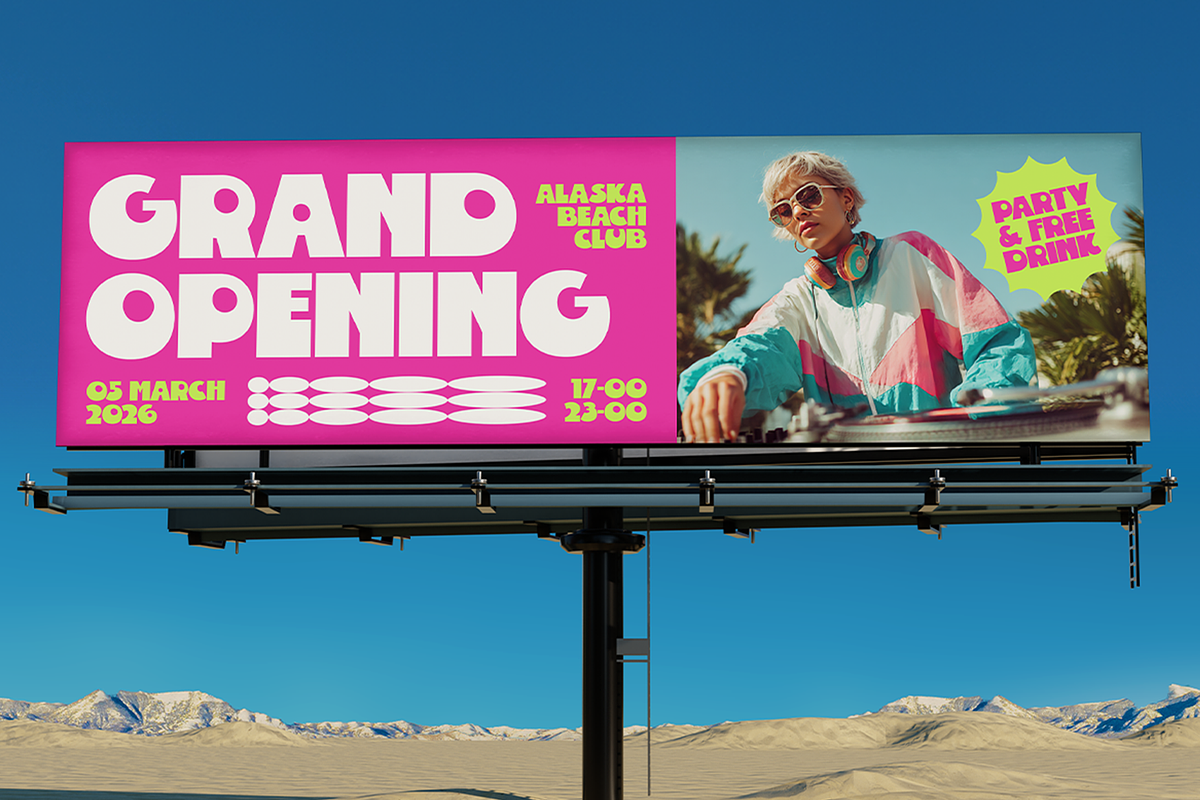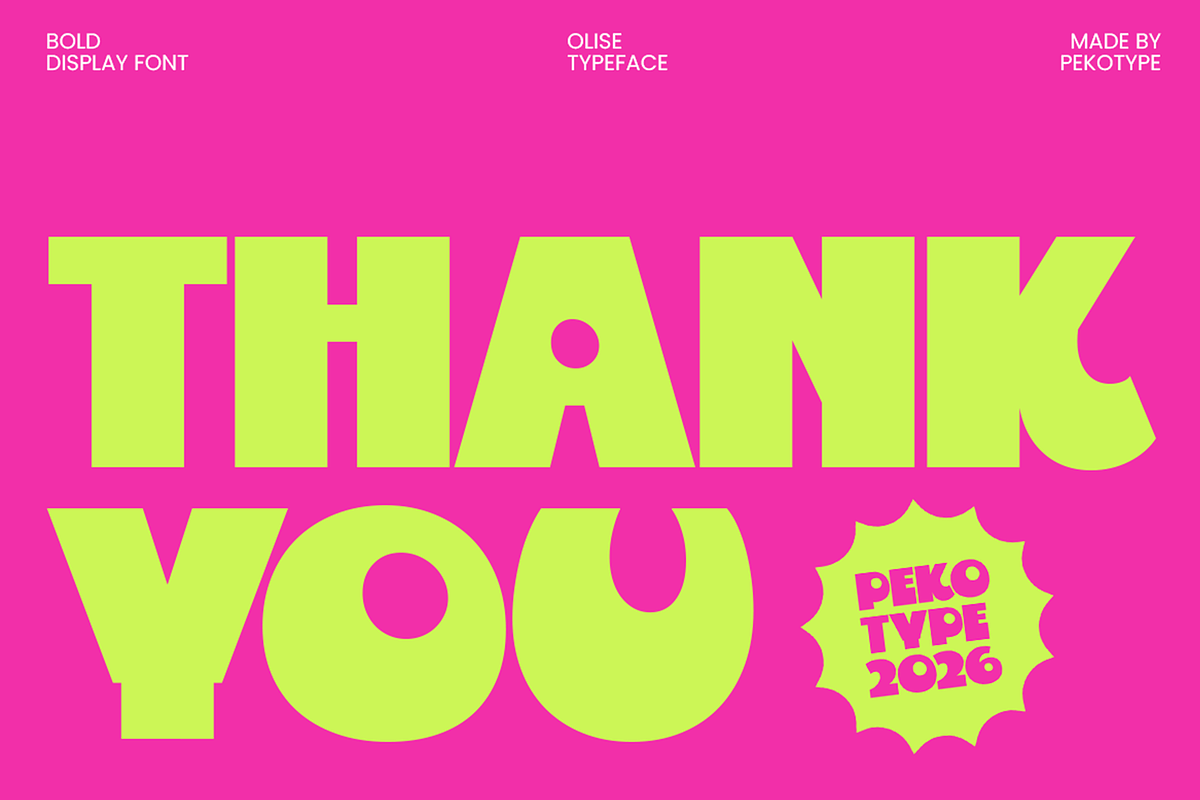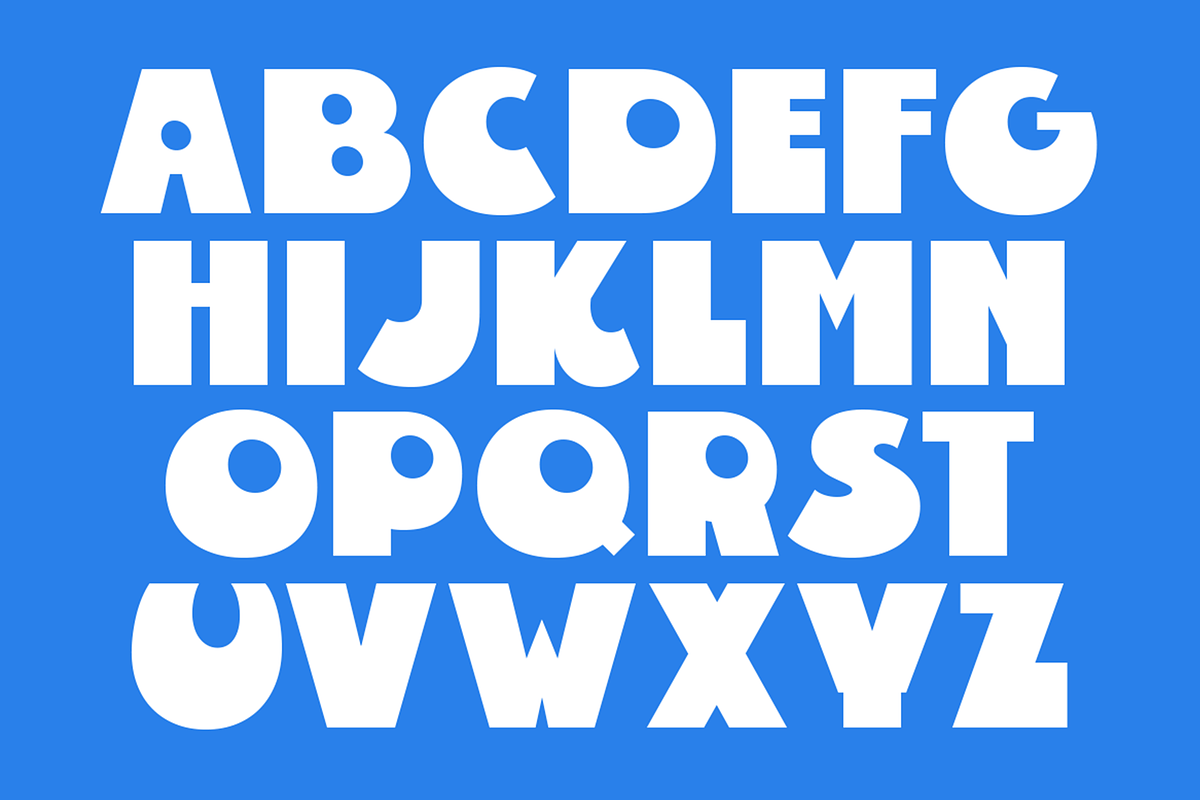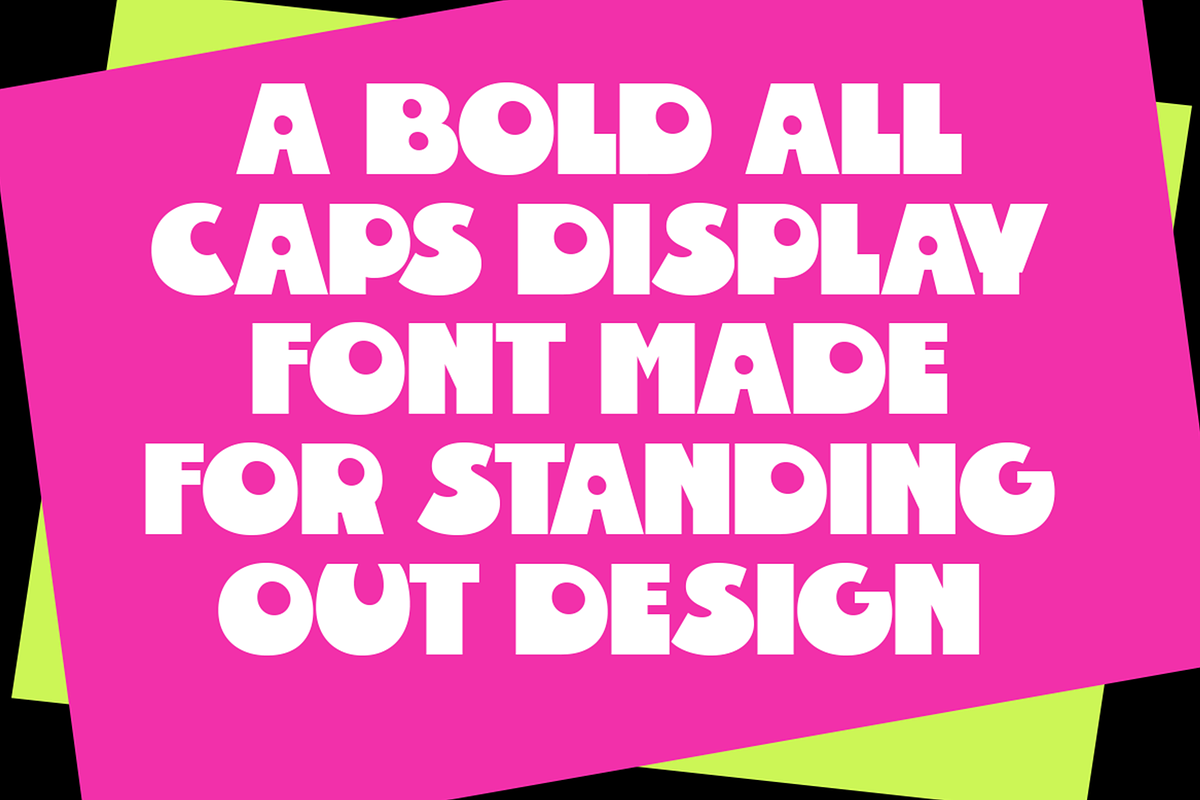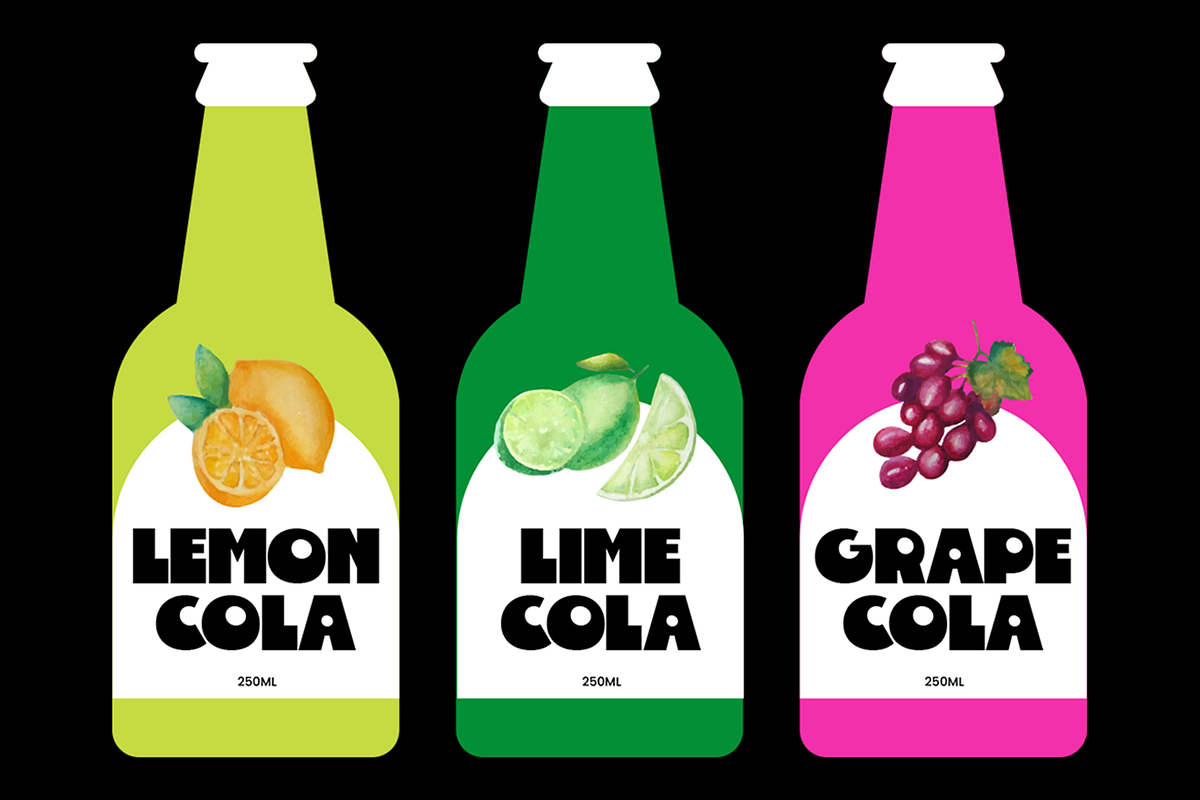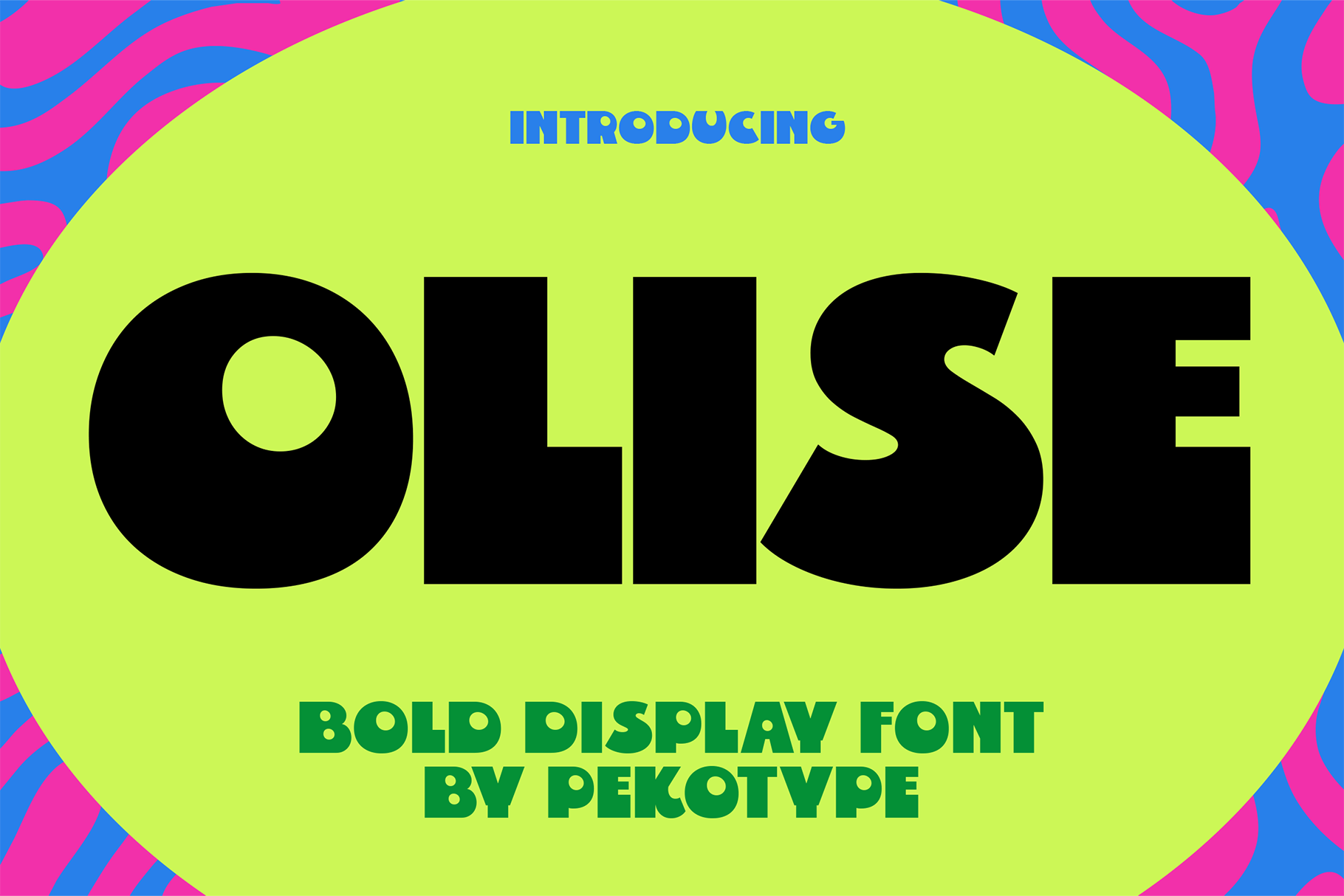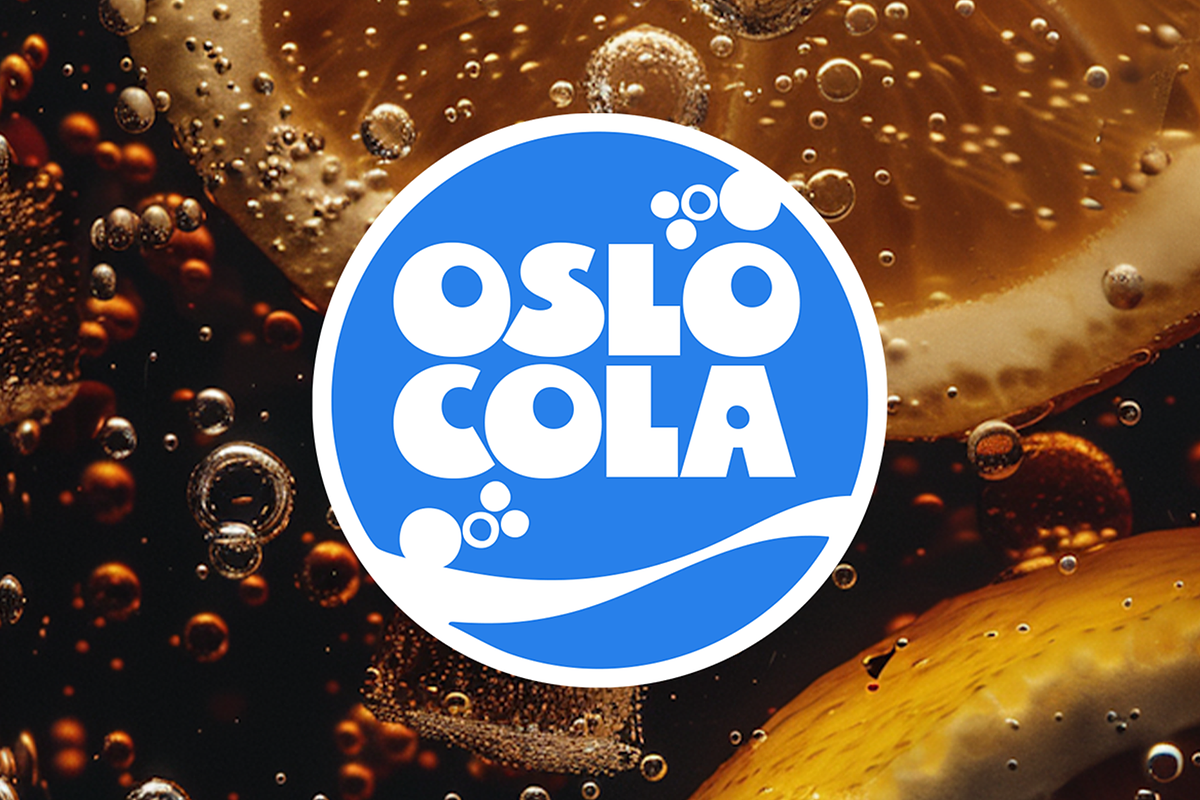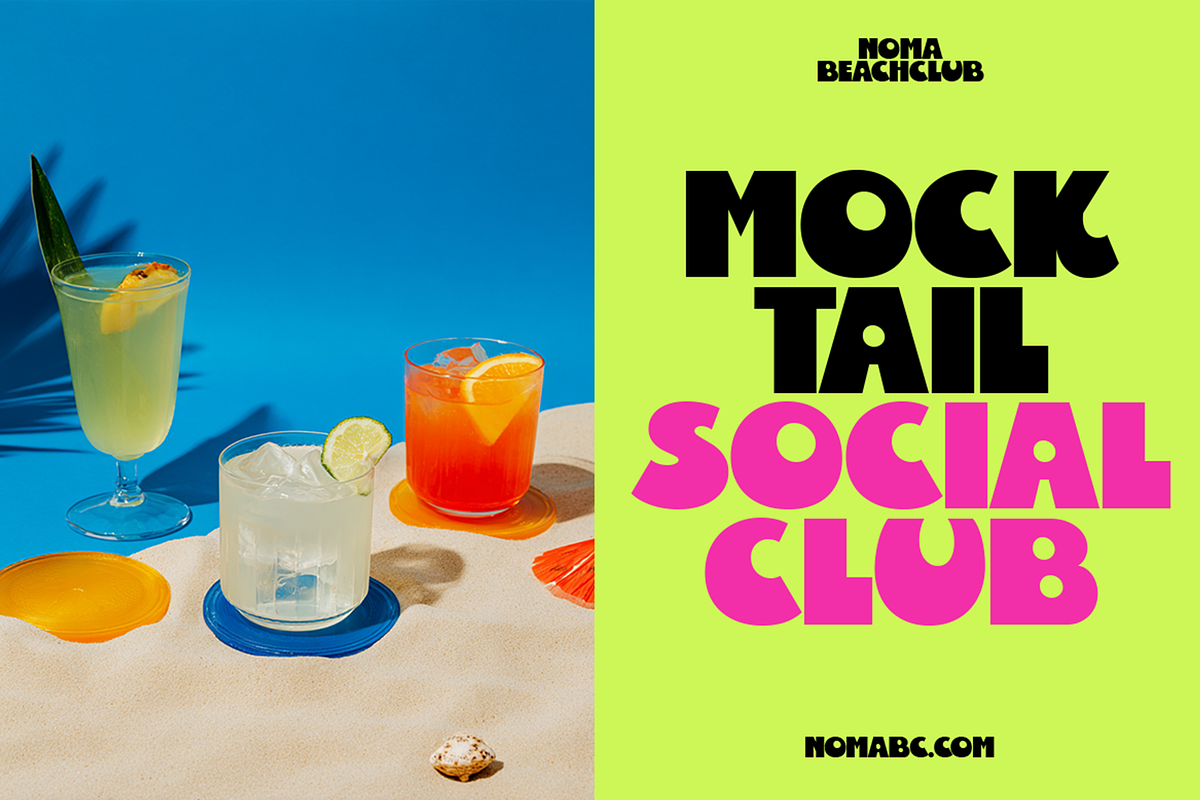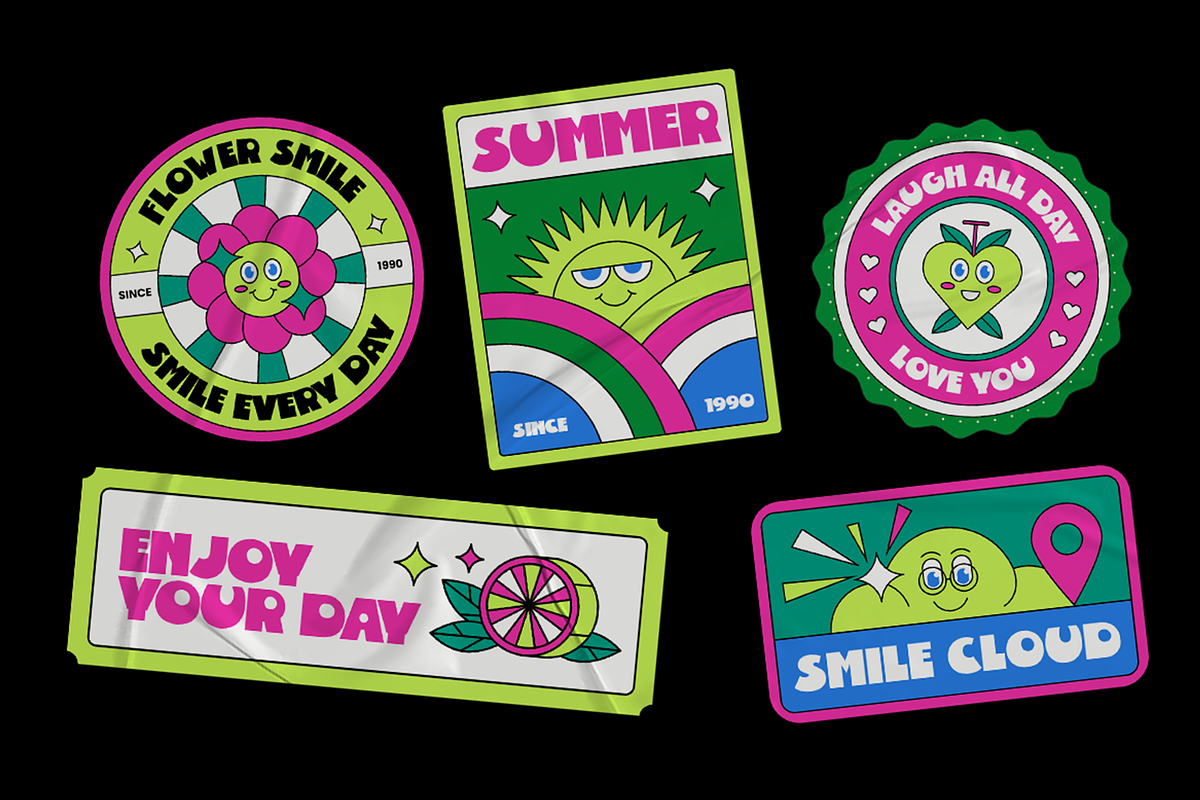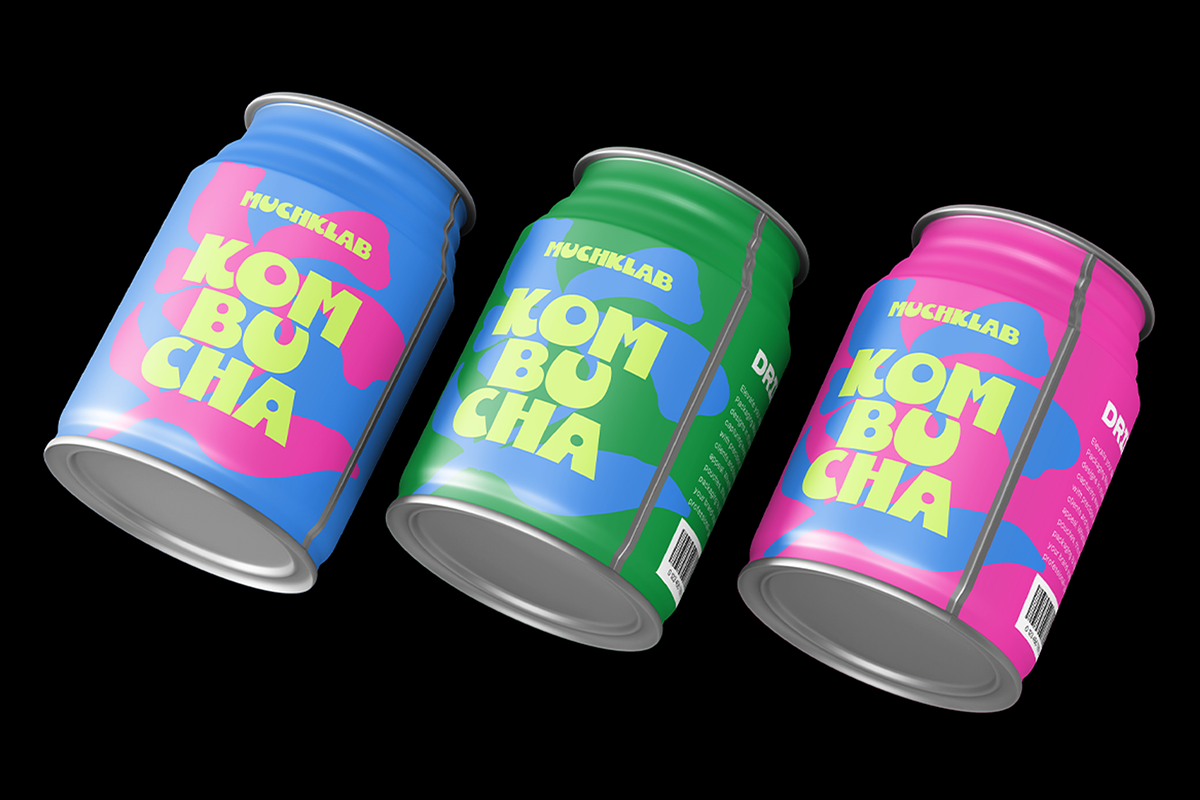
Olise - Bold Thick Display Logo Font
OLISE is a bold all-caps display font designed to be loud, playful, and impossible to ignore. Its chunky letterforms, smooth curves, and high-contrast presence create a graphic punch that feels modern, youthful, and full of energy. OLISE carries a pop-inspired personality — bright, confident, and expressive — making every headline look fun and instantly readable. It’s a typeface built to stand out, not blend in.
Perfect for branding, logos, posters, packaging, social media graphics, advertising, events, food visuals, and youth marketing, OLISE shines anywhere attention matters. It works especially well for lifestyle brands, cafés, pop culture projects, street visuals, and bold promotional campaigns. If you want a font that feels vibrant, friendly, and visually addictive, OLISE delivers high-impact character with a playful voice.
- All Caps
- Number, Symbol, & Punctuation